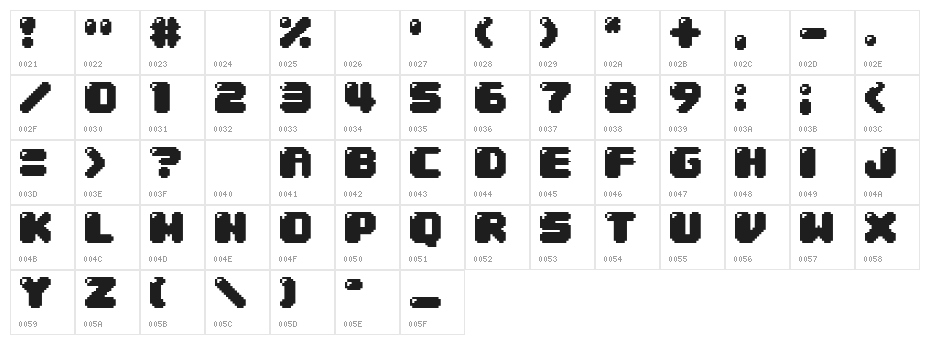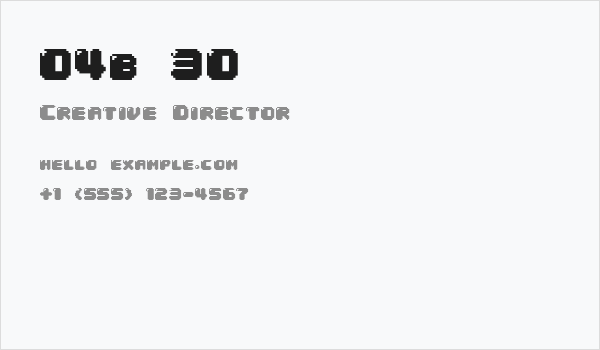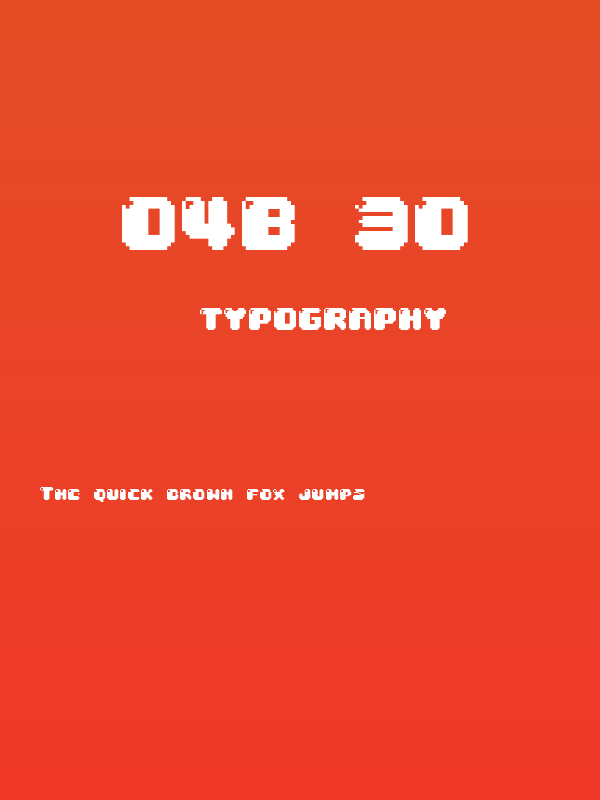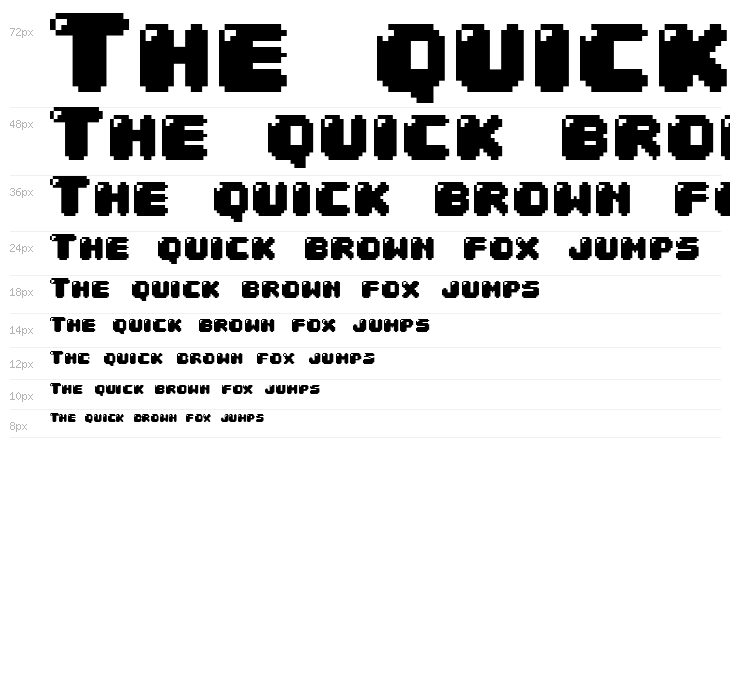
04b 30 Font
| Categorie | Pixel |
| Stile generale | Retro, Digital |
| Caso d'uso | Logos, Posters, Video games |
| Progetti proposti | Ideal for projects that require a vintage digital aesthetic, such as retro video games, tech-themed posters, or digital art displays. |